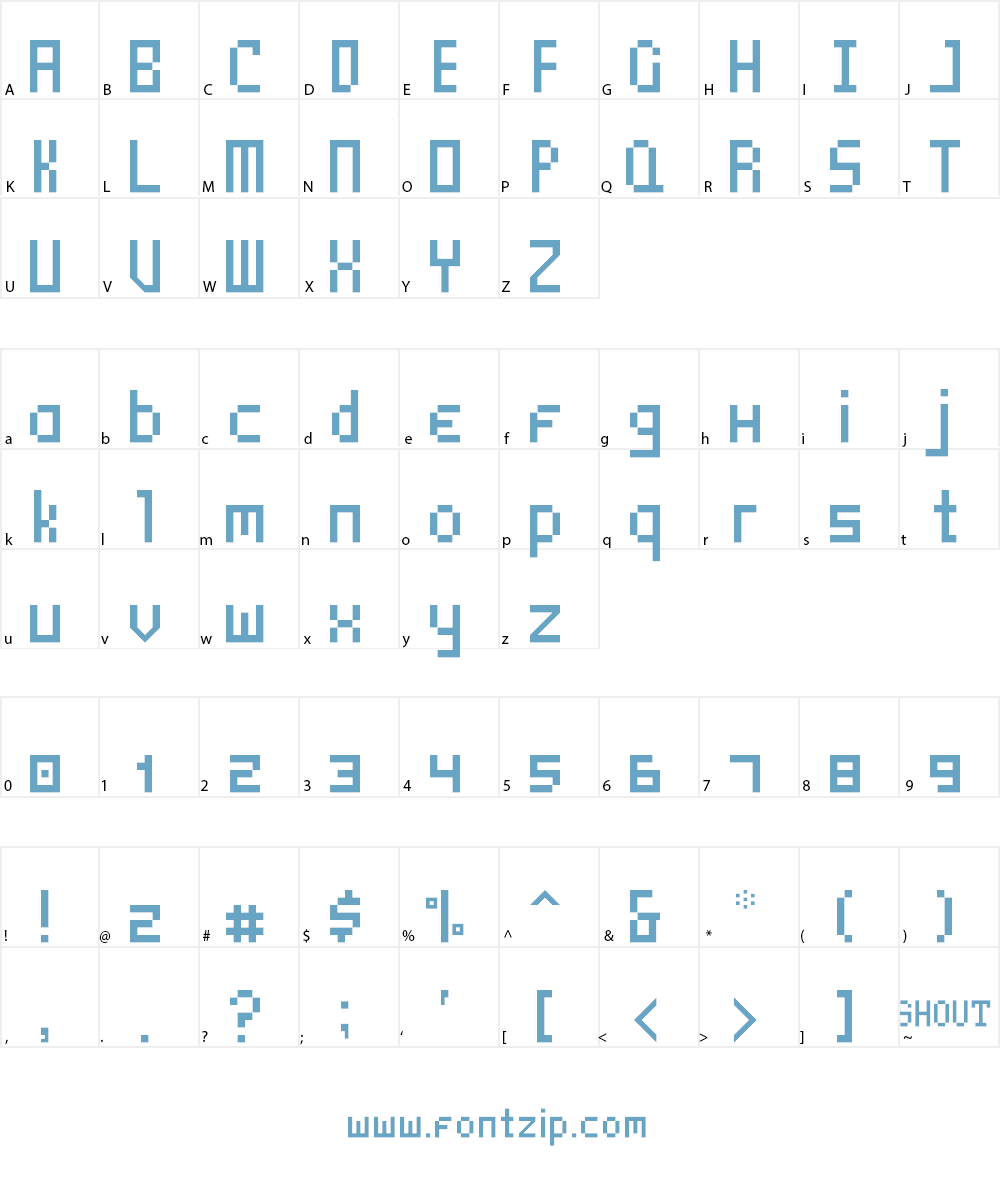
A near-total redesign of my very first typeface! The lowercase Latin set has been streamlined and a few uppercase letters have been fixed as well. The word "DEVO" renders better now that D has been widened by half a Fontstruct brick. (Approximately 1 pixel)
NOTE: this is NOT a pixel/bitmap font! It will not render properly at micro sizes (4-8 pt)